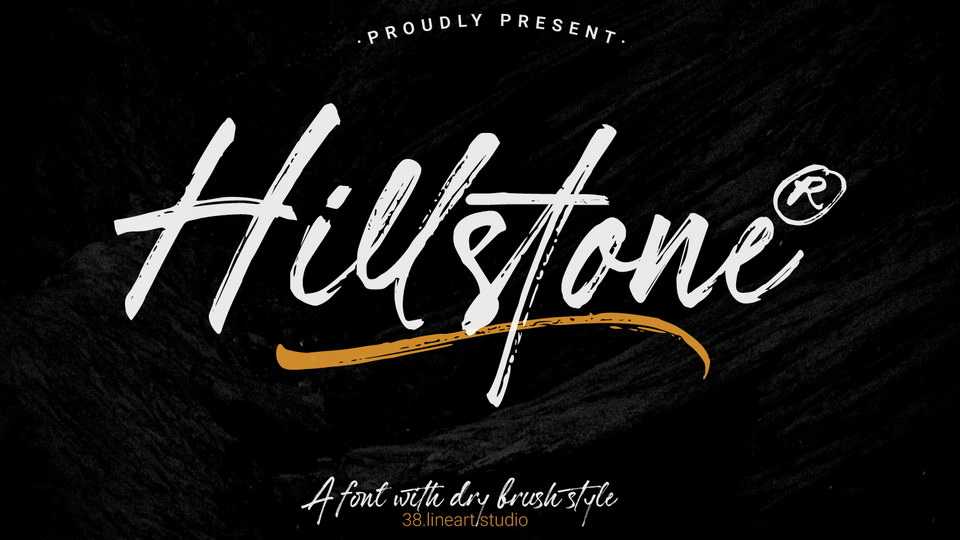
Download Hillstone is a handwritten font with a rough and dry brush style. Use Hillstone font for Instagram, quotes and other long text, for product brands, company logos, books and magazine covers, everytype will look very typical.